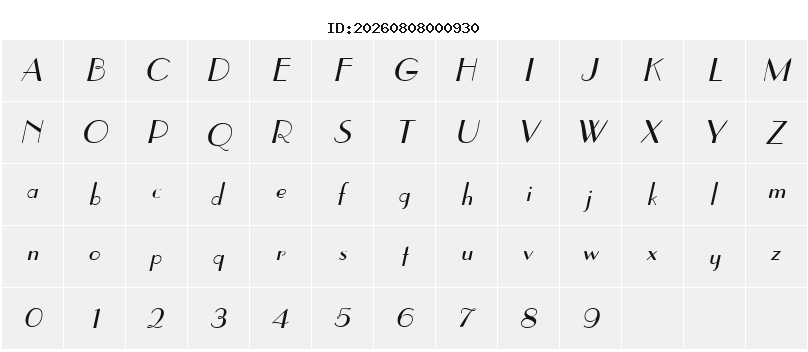
• Font Name: Publish
• Full Font Name: Publish Italic
About Publish.ttf
Publish.ttf is a modern, elegant sans-serif font designed for ultimate readability and visual harmony. Perfect for branding, headlines, web design, and print materials.